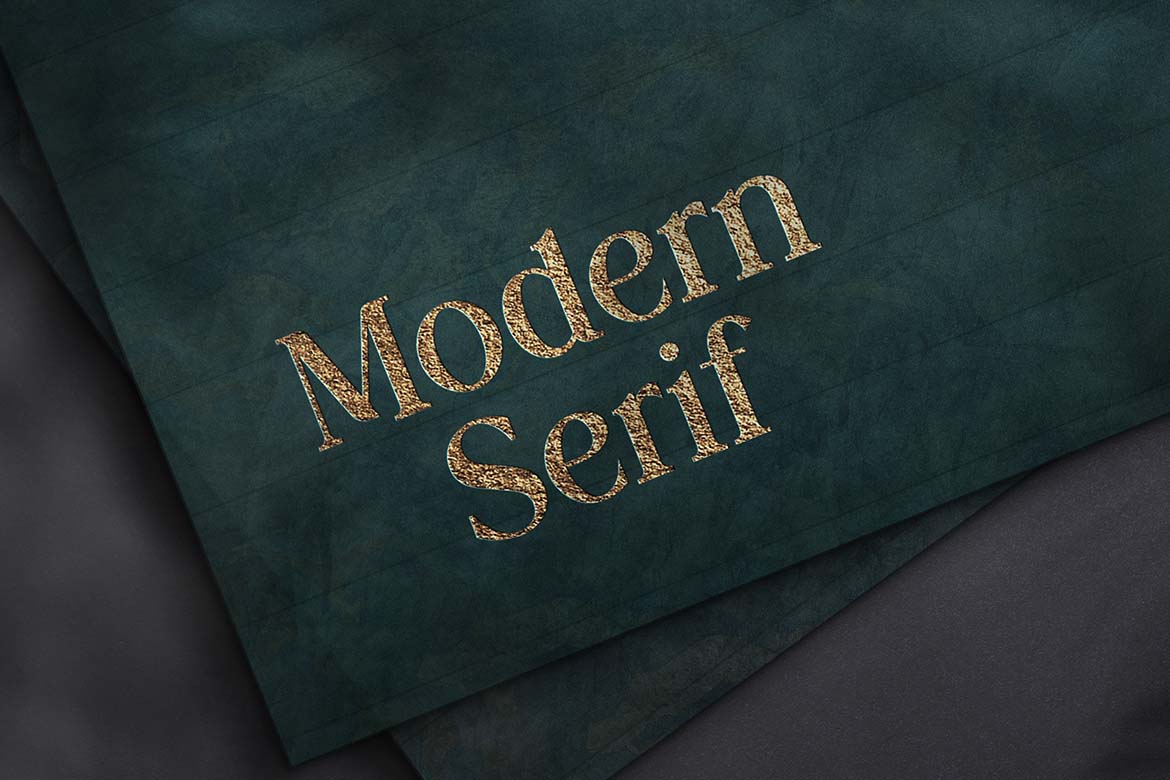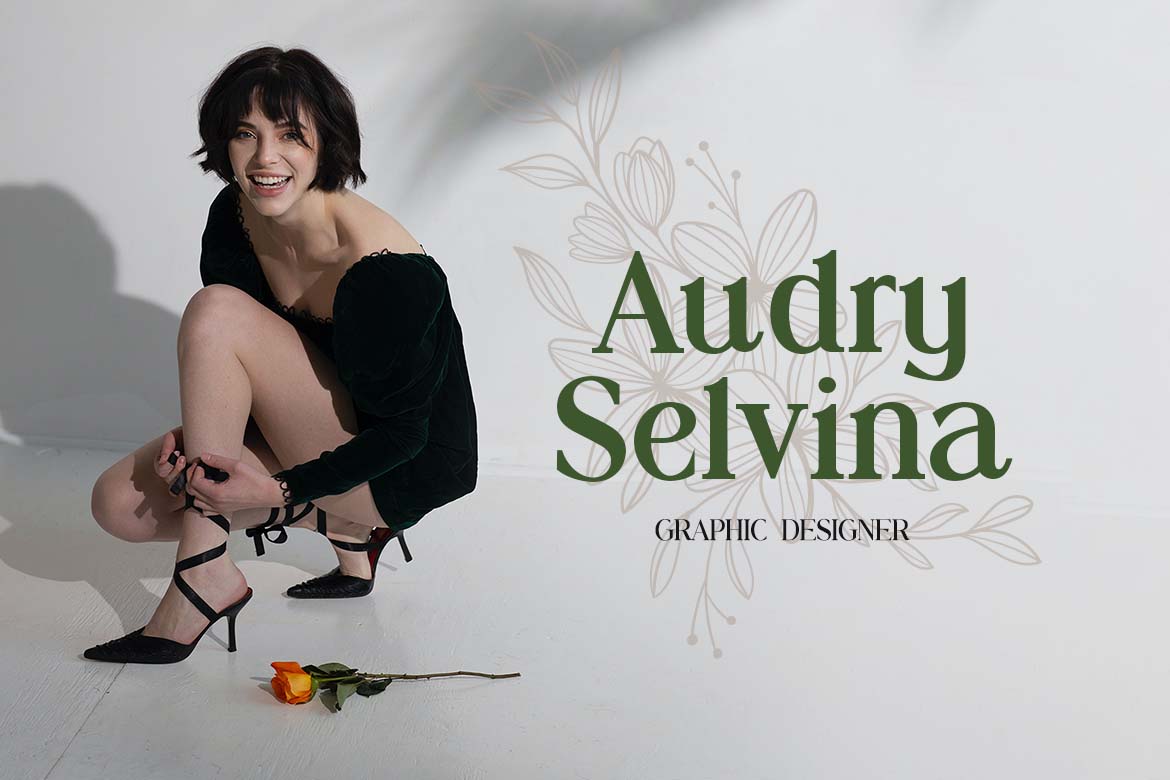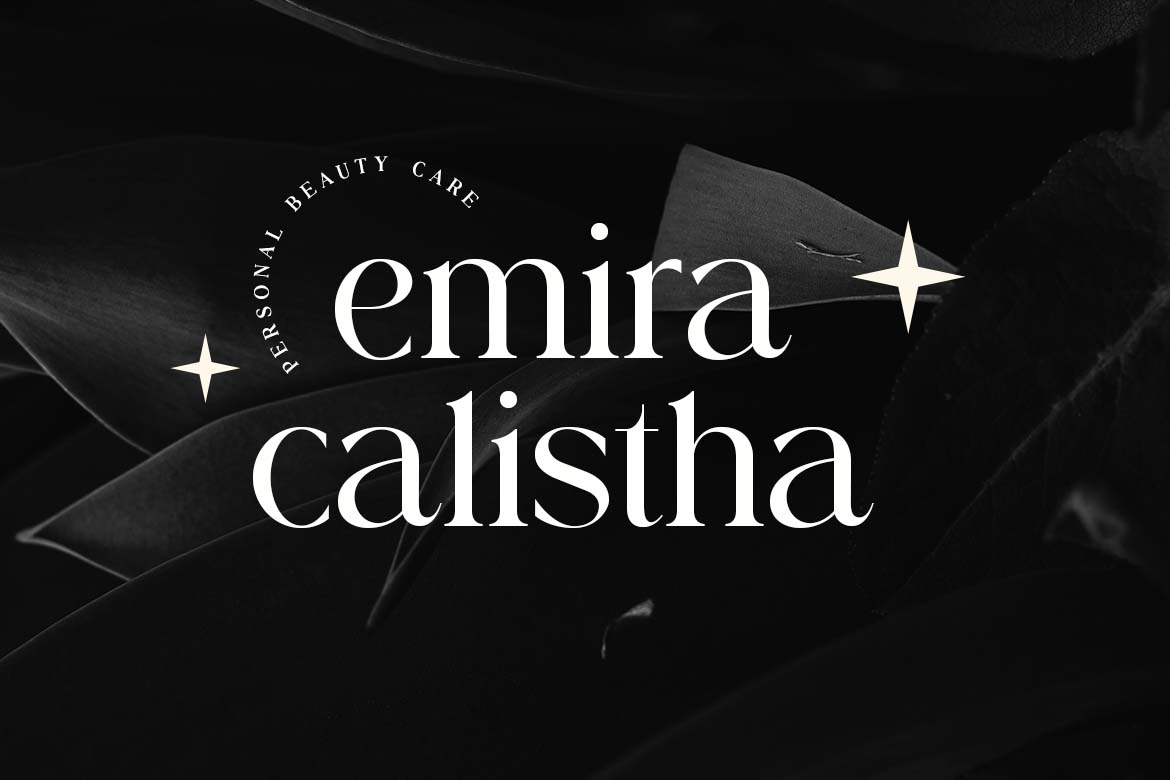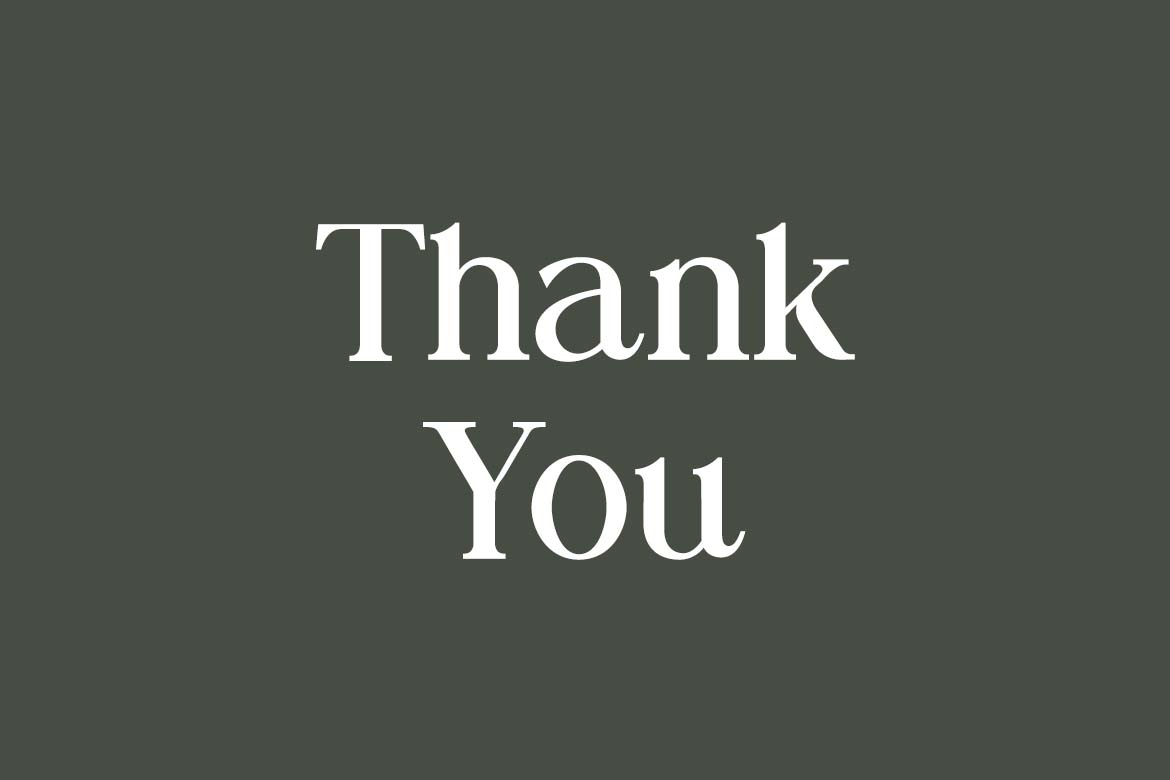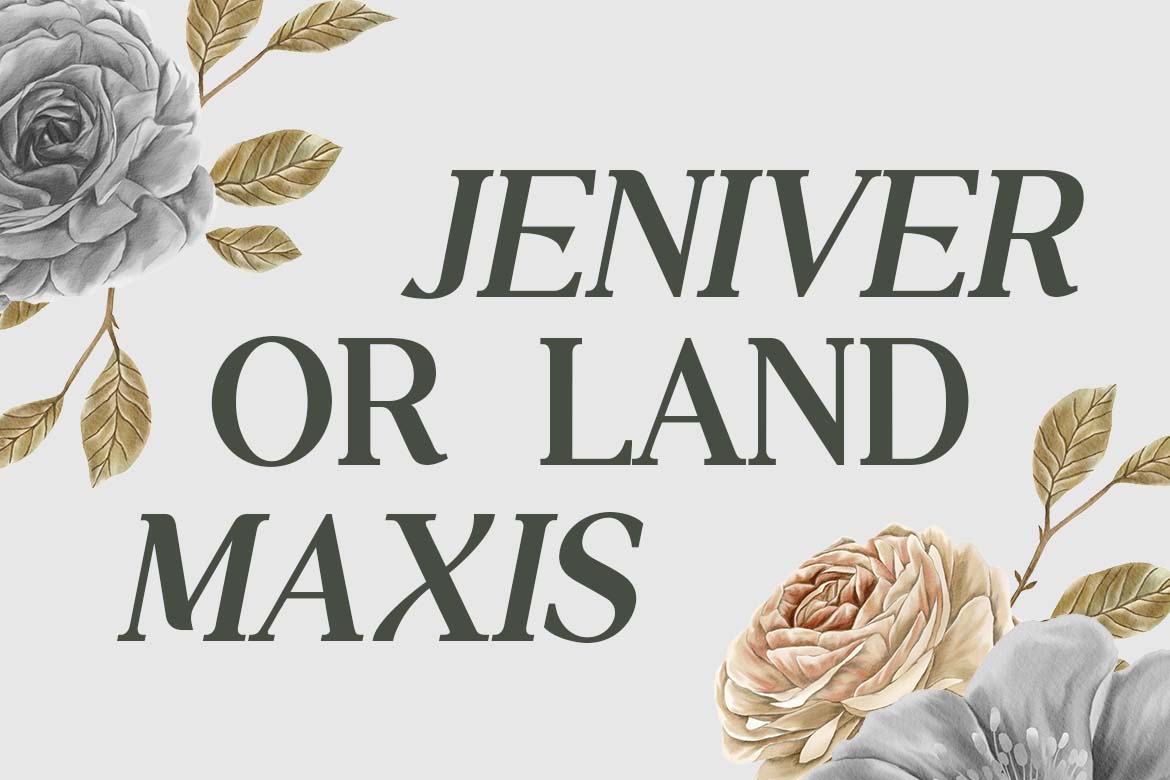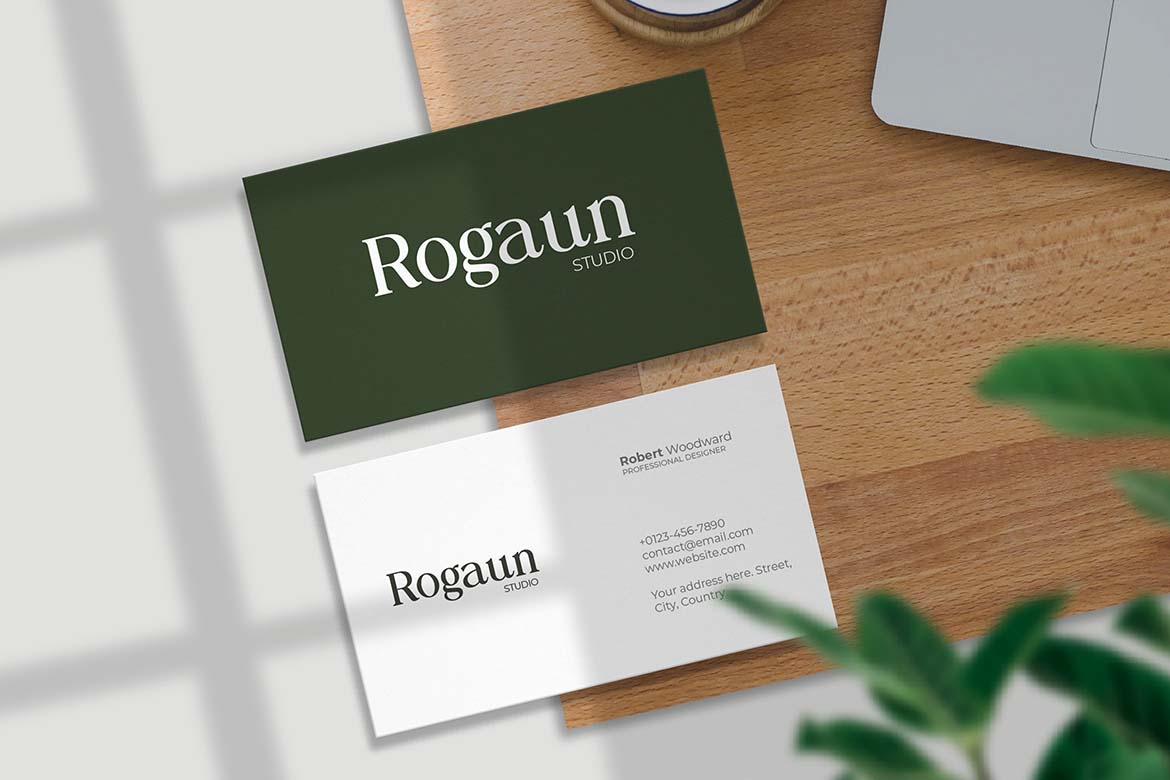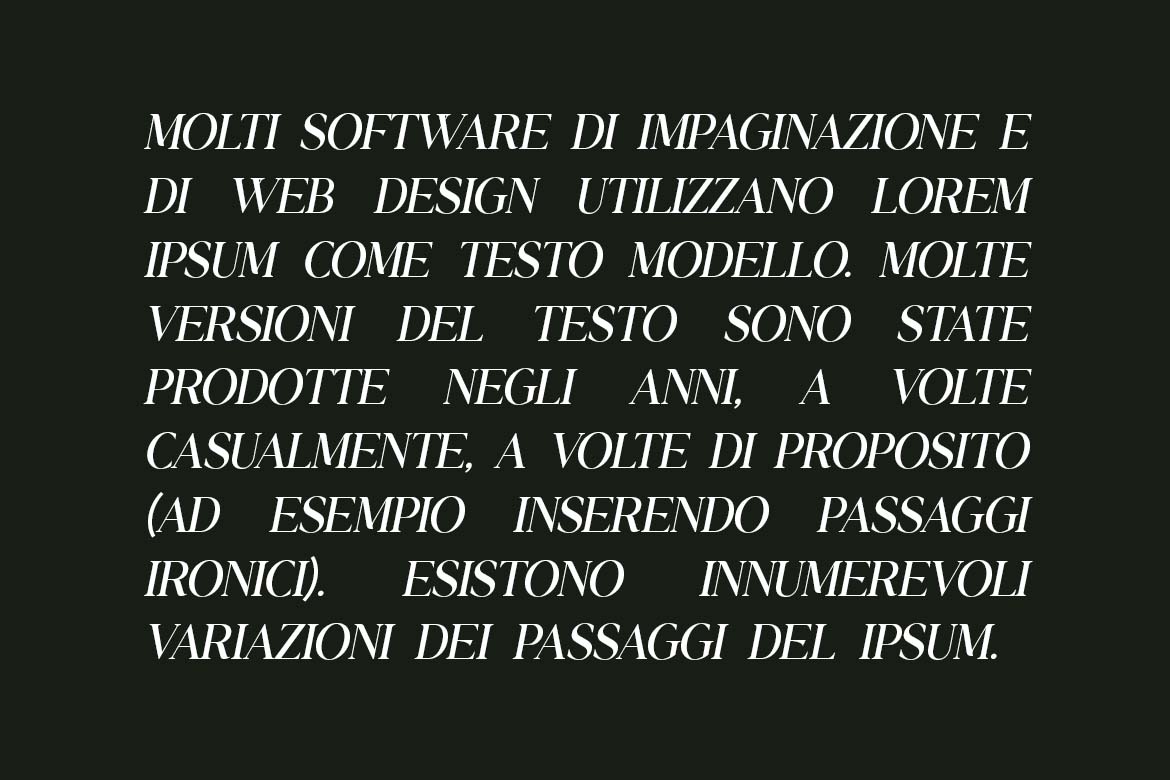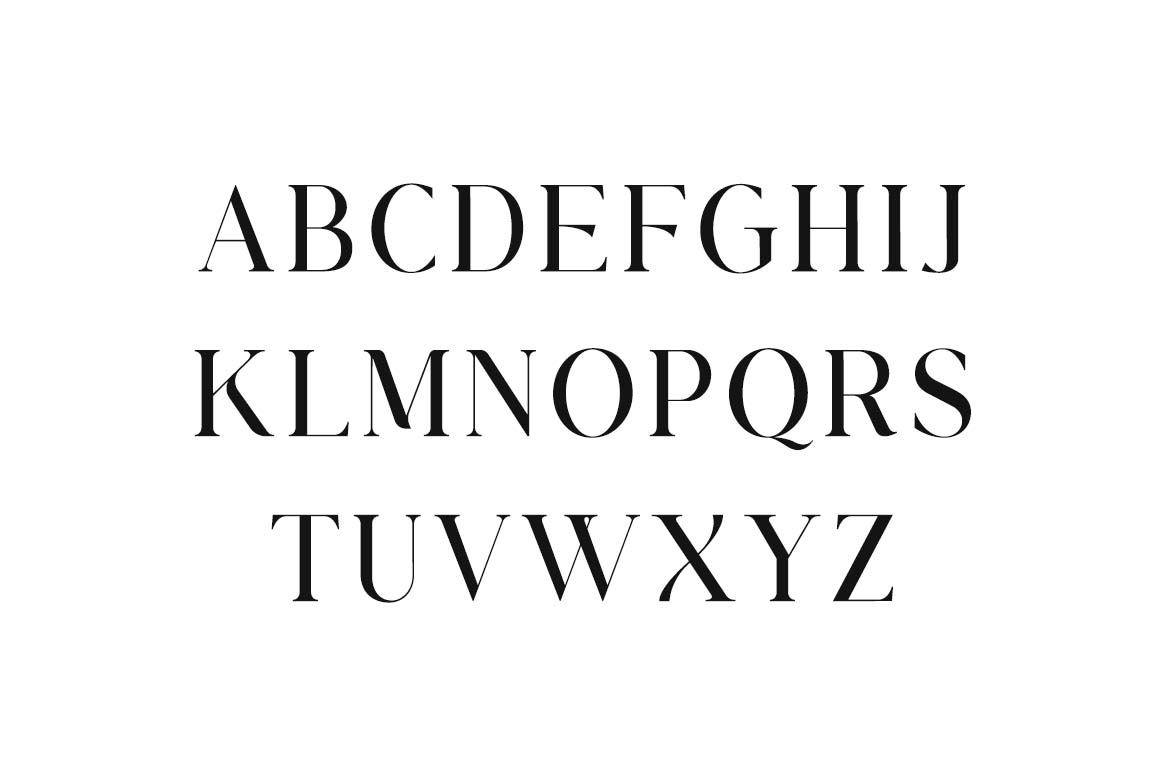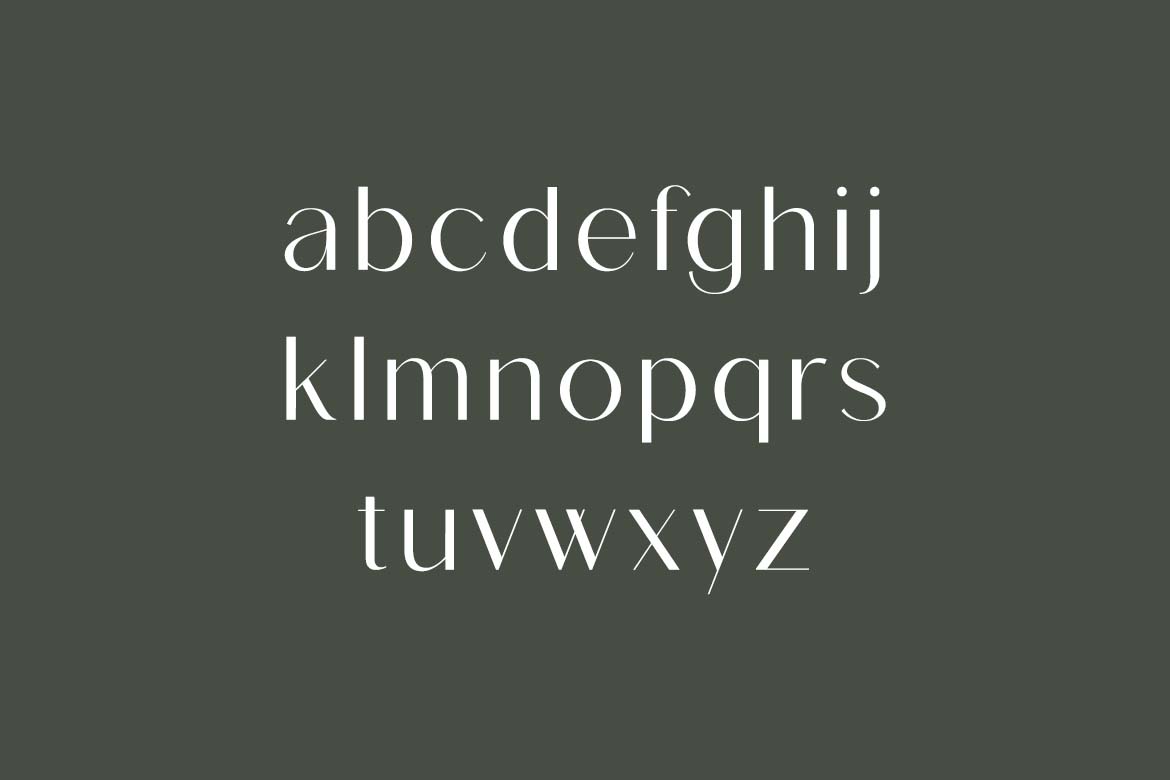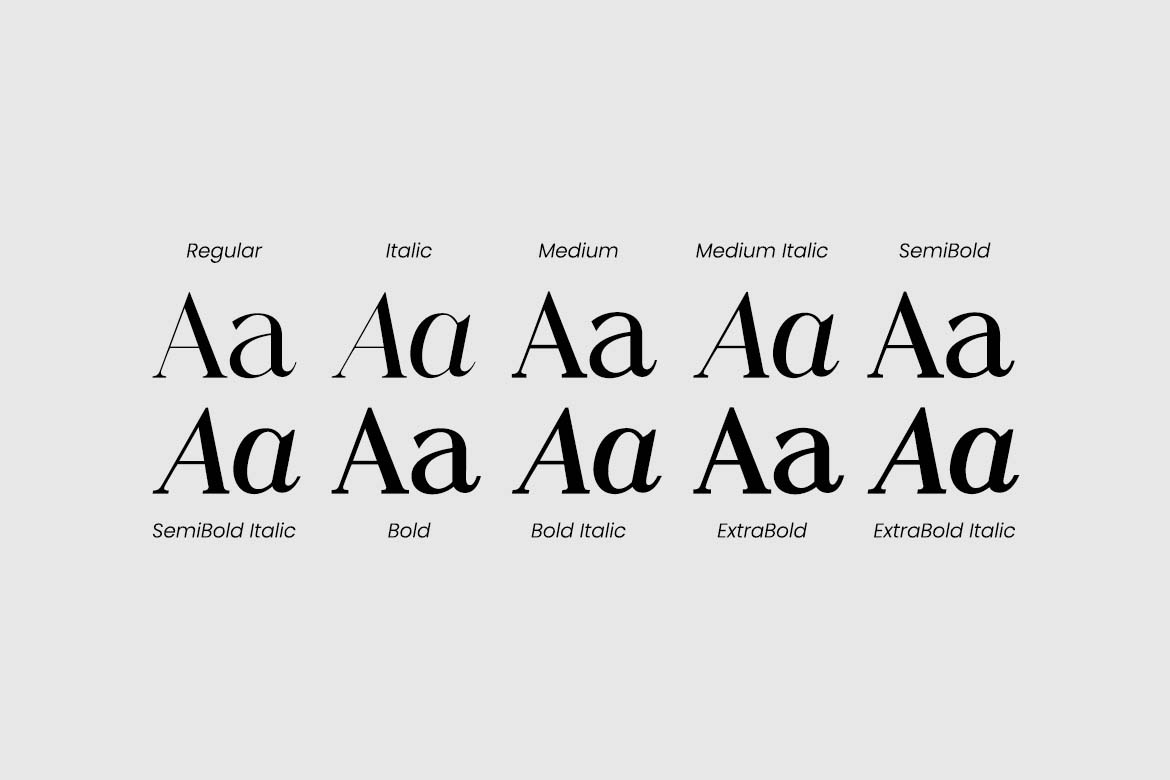
Swaying Elizabeth Modern Serif Family Font
Swaying Elizabeth is a modern serif family from UI Creative that pairs a crisp roman with an italic that almost moves. The upright styles have sharp hairline serifs, strong contrast and tall capitals; the italics turn calligraphic, with a single-storey a and g and a y whose tail curls away like a pen stroke. Set the two side by side and you get the sway in its name.
Five weights from Regular to ExtraBold, each with its italic, give you a full toolkit for branding and print: beauty and wellness logos, studio business cards, portfolio names, magazine spreads and quote cards. The previews show it on “Rogaun Studio” cards, in gold foil on deep green paper, as an “emira calistha” beauty care mark and as a designer’s name beside her portrait.
• 10 styles: Regular, Medium, SemiBold, Bold and ExtraBold, each with a matching italic